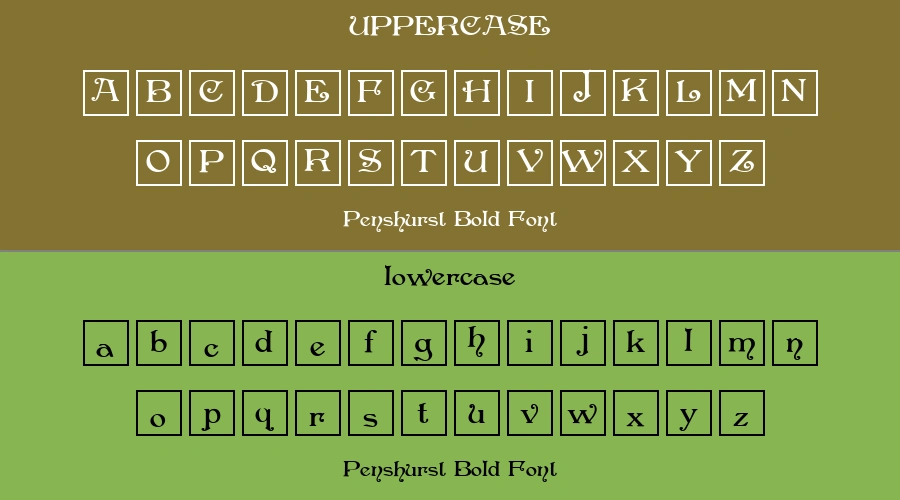
About Penshurst Bold Font
When typographic excellence matters most, Penshurst Bold Font delivers through its thoughtful blend of harmonious shapes and classic beauty. Specially crafted for motion graphics, it offers the accuracy and classic beauty required for sophisticated design work. Every detail serves a purpose.
The character set showcases thoughtful details like pressure variations alongside functional initial forms. This proves especially valuable in marketing collateral, where emotional response directly influences results. Particular attention was paid to descender depth and standards alignment during development.